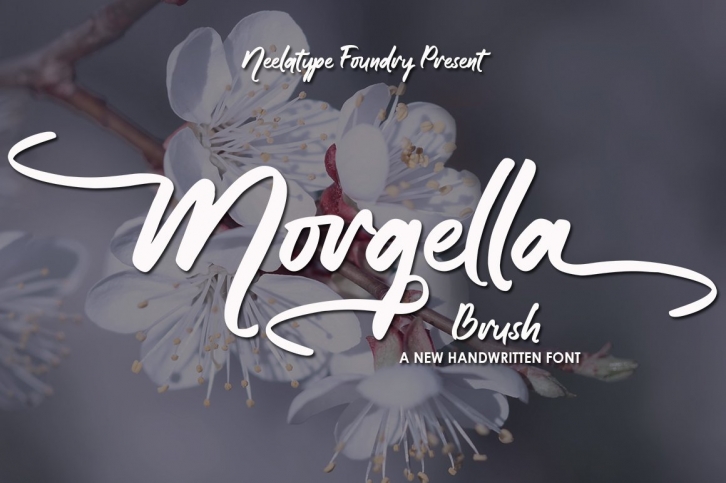
Morgella Brush is a beautiful font that was designed by Neelatype Foundry. It's a great choice for designers and creatives who need such a font. It was released on April 8, 2020 and the file size is 21.36 MB. Morgella Brush may give a more youthful, expressive and casual look to your project. It is a very beautiful, refined, elegant, and high-quality font.